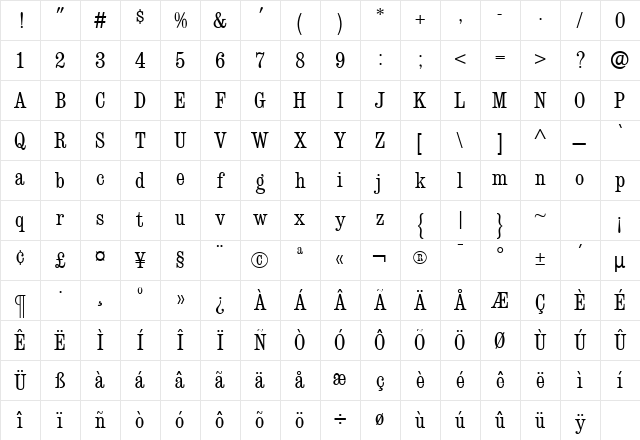
ConsortLightCondensed Regular
Complete ConsortLightCondensed Regular glyph index. Displaying only characters natively supported by ConsortLightCondensed Regular font.
Design Context for ConsortLightCondensed
ConsortLightCondensed is a composed and adaptable typeface that performs quietly and consistently across a wide range of design contexts. Its slender proportions lend an understated elegance to any composition. Its narrow stance lets it pack a punch even in space-constrained designs.